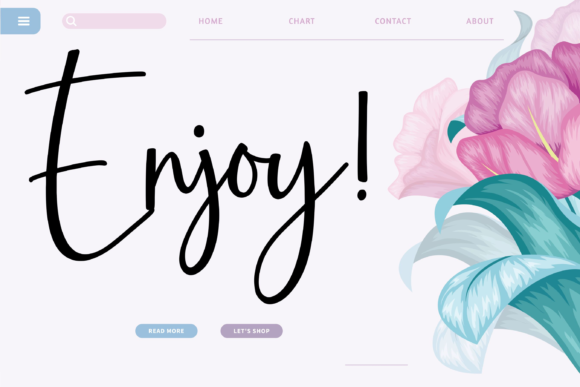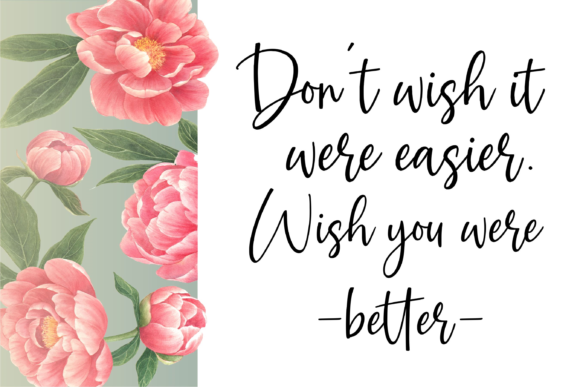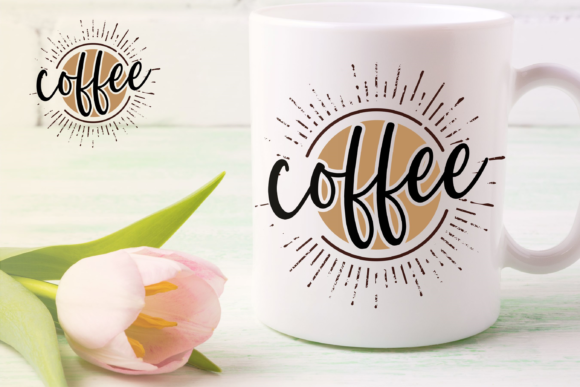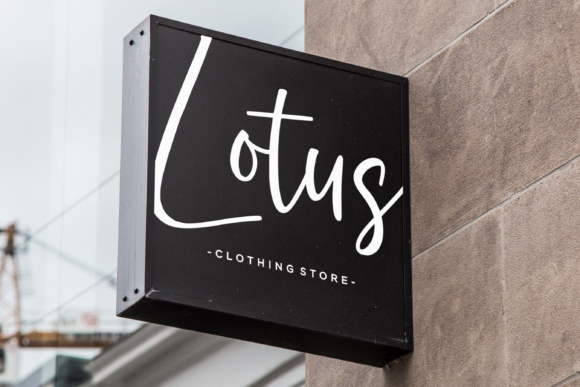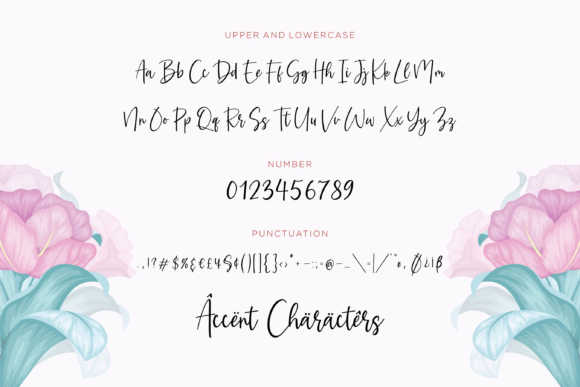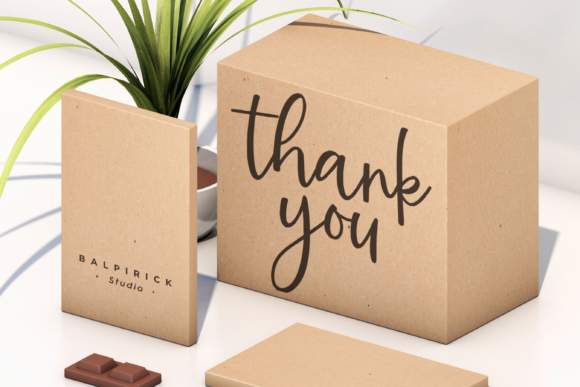
Introducing Amarylli Blossom Font: The Sweet and Soft Hand-Lettered Font for Stunning Designs
Are you a designer or crafter looking for a font that can add a touch of sweetness and softness to your designs? Look no further than the Amarylli Blossom Font. This hand-lettered handwritten font is perfect for creating stunning designs that are sure to capture the attention of your audience. With its playful rounded characters, Amarylli Blossom is ideal for a variety of design projects, from wedding invitations and stationary art to social media posts and greeting cards.
The Characteristics of Amarylli Blossom Font
Amarylli Blossom is a unique and authentic font that is characterized by its sweet and soft hand-lettered style. The font features playful rounded characters that give it a friendly and approachable feel. The letters are carefully crafted to create a sense of movement and fluidity, making it perfect for designs that require a touch of elegance and sophistication.
Uses of Amarylli Blossom Font
Amarylli Blossom is a versatile font that can be used for a wide range of design projects. Here are some of the ways you can use this beautiful font:
- Wedding Invitations: Create stunning wedding invitations that will set the tone for the big day. The Amarylli Blossom Font is perfect for wedding designs, with its elegant and sophisticated feel.
- Stationary Art: Add a touch of sweetness and softness to your stationary art with Amarylli Blossom. The font is perfect for creating beautiful journals, planners, and notebooks.
- Social Media Posts: Make your social media posts stand out with Amarylli Blossom. The font is perfect for creating eye-catching graphics and quotes that will capture the attention of your audience.
- Greeting Cards: Create cute and personalized greeting cards for special occasions such as birthdays, anniversaries, and holidays.
Why Choose Amarylli Blossom Font?
There are many reasons why you should choose Amarylli Blossom Font for your design projects. Here are a few:
- Unique and Authentic: Amarylli Blossom is a unique and authentic font that will give your designs a distinctive look and feel.
- Versatile: Amarylli Blossom is a versatile font that can be used for a wide range of design projects.
- High-Quality: The font is of high-quality, making it perfect for professional designs.
Tips for Using Amarylli Blossom Font
Here are some tips for using Amarylli Blossom Font:
- Use it with Colors: Amarylli Blossom looks great with bright and pastel colors. Experiment with different color combinations to find the one that works best for your design.
- Mix and Match: Mix and match Amarylli Blossom with other fonts to create a unique and interesting design.
- Experiment with Sizes: Experiment with different font sizes to create visual interest and hierarchy in your design.
Amarylli Blossom Font is a sweet and soft hand-lettered font that is perfect for creating stunning designs. With its playful rounded characters and authentic feel, it’s ideal for a variety of design projects, from wedding invitations and stationary art to social media posts and greeting cards. Whether you’re a designer or crafter, Amarylli Blossom is a great choice for adding a touch of sweetness and softness to your designs.